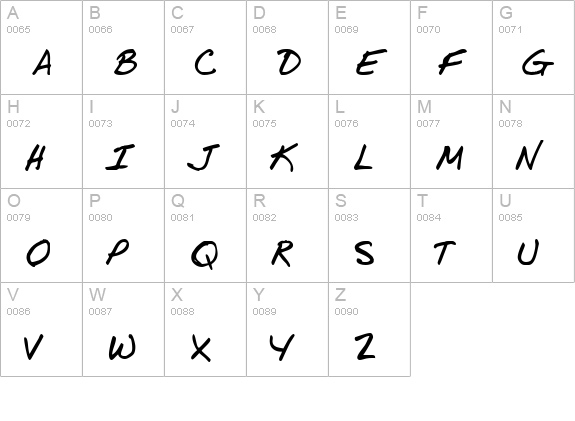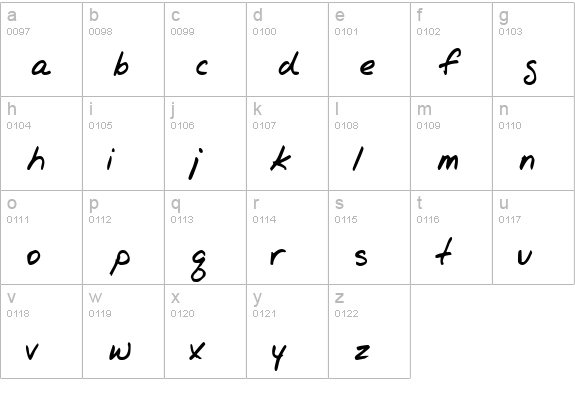
jr!hand Font Details
The jr!hand font is a charming and playful handwritten typeface that exudes a sense of creativity and personal touch. With its unique and quirky design, this font adds a fun and youthful vibe to any project it is used in. The flowing strokes and irregular letterforms give it a handmade feel that is perfect for adding a touch of whimsy to invitations, greeting cards, posters, and more. Best of all, the jr!hand font is available for free download at FontsMarket.com. Whether you're a professional designer looking for a fresh and engaging font or a hobbyist seeking to jazz up your personal projects, this font is a fantastic choice. Don't miss out on the opportunity to add this delightful typeface to your collection today!